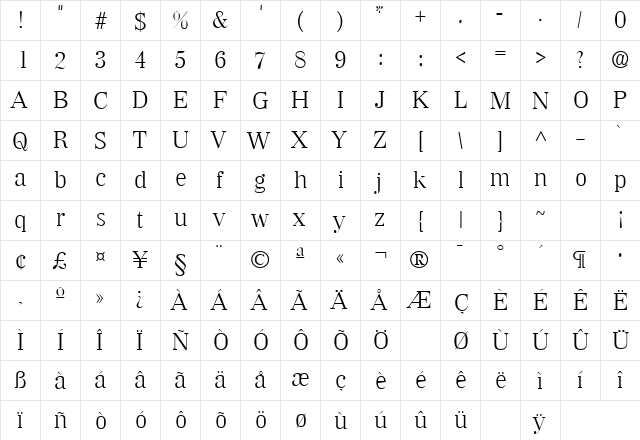
WichitaLH Regular
Design Context for WichitaLH Typeface
WichitaLH takes a measured approach to typography — its balanced proportions and neutral character make it a reliable workhorse for both digital and print work.